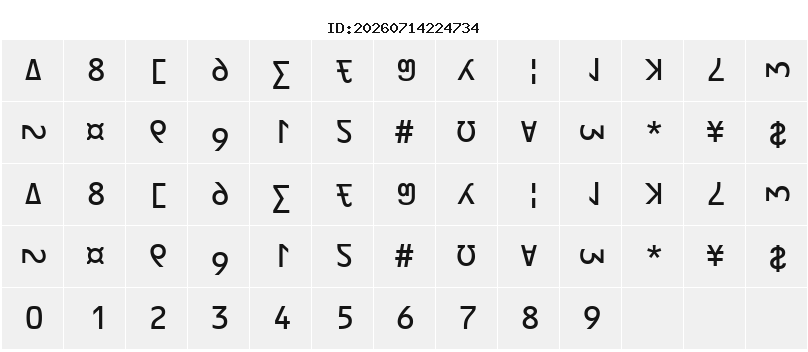
y2k.ttf
About y2k.ttf
y2k.ttf is a modern, elegant sans-serif font designed for ultimate readability and visual harmony. Perfect for branding, headlines, web design, and print materials.